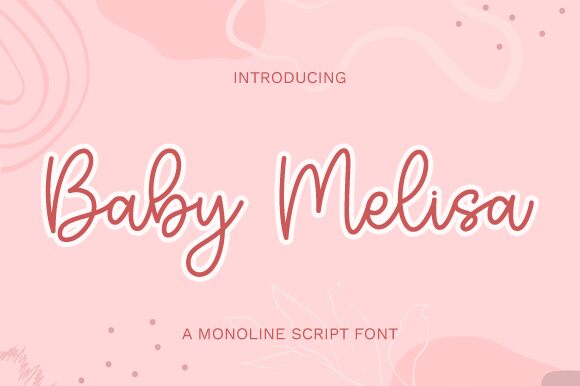
Baby Melisa
Baby Melisa, a creation by Graphix Line Studio, is a handwritten font that exudes charm and personality. Its light weight gives it an airy, delicate feel, perfect for conveying intimacy and subtle elegance. The fluidity of its characters suggests a personal touch, reminiscent of a heartfelt note or an artisanal signature.
The aesthetic appeal of Baby Melisa lies in its balance between legibility and artistry. Each letterform is crafted with care, ensuring that while the font maintains the spontaneity of handwriting, it remains clean and readable at various sizes. This harmonious blend makes Baby Melisa versatile for an array of creative projects.
Whether it's to add a whimsical touch to wedding invitations, lend authenticity to branding materials or to infuse literary works with character, Baby Melisa offers designers a font that is as adaptable as it is beautiful. Its handwritten style can elevate the visual narrative of any project it graces, making this font an essential addition to any designer's toolkit.
The aesthetic appeal of Baby Melisa lies in its balance between legibility and artistry. Each letterform is crafted with care, ensuring that while the font maintains the spontaneity of handwriting, it remains clean and readable at various sizes. This harmonious blend makes Baby Melisa versatile for an array of creative projects.
Whether it's to add a whimsical touch to wedding invitations, lend authenticity to branding materials or to infuse literary works with character, Baby Melisa offers designers a font that is as adaptable as it is beautiful. Its handwritten style can elevate the visual narrative of any project it graces, making this font an essential addition to any designer's toolkit.